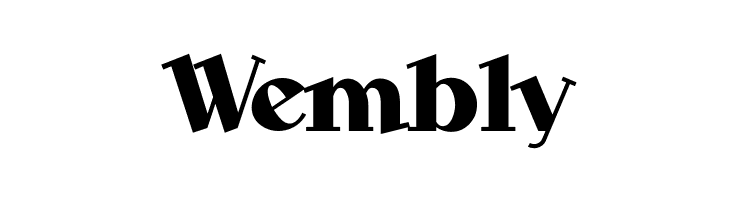
Beirut Black Font
- Font: Beirut Black
( Fonts by Astigmatic One Eye Typographic Institute - Brian J. Bonislawsky - astigmatic.com )
A whimsical, hand-drawn font with irregular, artistic strokes.